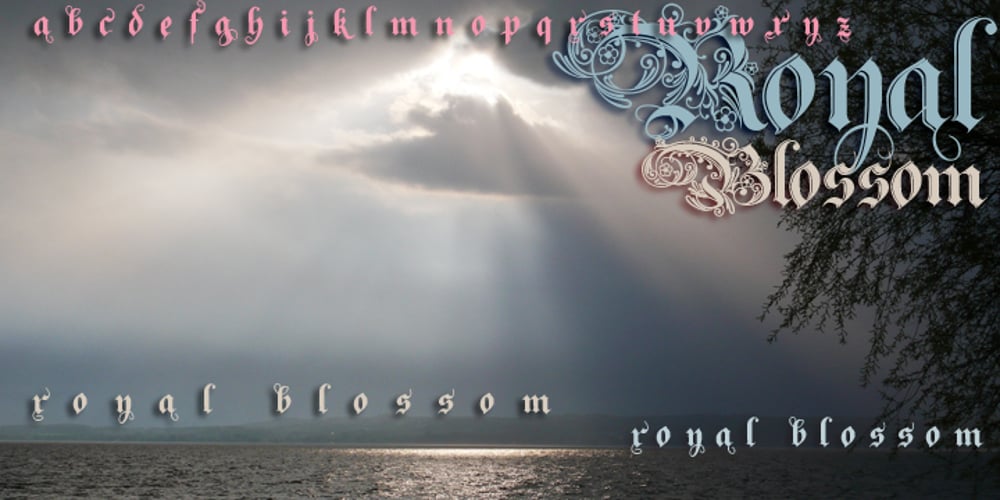
Royal Blossom Font Family was designed by Gert Wiescher and published by Wiescher Design. Royal Blossom contains 1 styles and family package options. Royal Blossom belongs to my extended family of blackletter fonts that are derived from the famous Royal Bavarian Fraktur. Ayres Royal and Monkeytails also belong to this elaborate set of blackletter fonts; that’s why I now offer the lot for an exceptional price. All fonts can be mixed and used together. Your type designer with a crunch for history, Gert Wiescher.